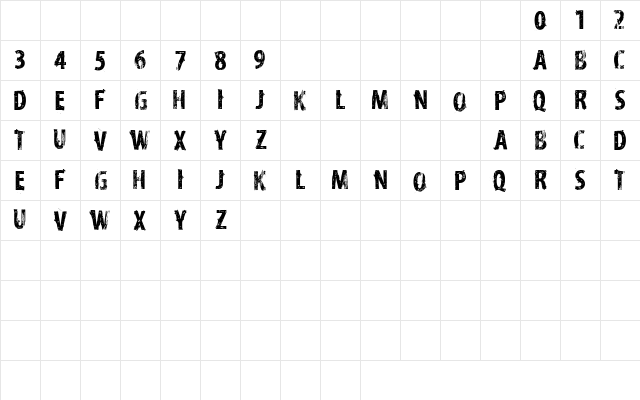
vtks distress Regular
Foundry: DOUGLAS VITKAUSKAS
Designer: DOUGLAS VITKAUSKAS
Design Context for vtks distress
vtks distress embraces imperfection - its rough, textured character adds raw authenticity to designs that want to feel lived-in and unconventional.
Pro Tip: Use vtks distress at larger sizes where the texture and irregularity of each letterform can be clearly seen - it loses its character at small sizes.
Who designed the vtks distress Regular font?